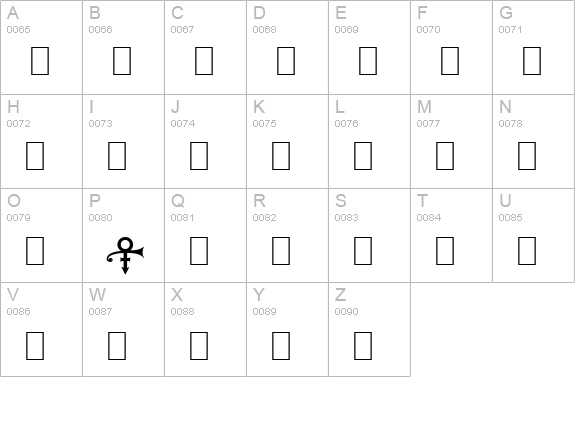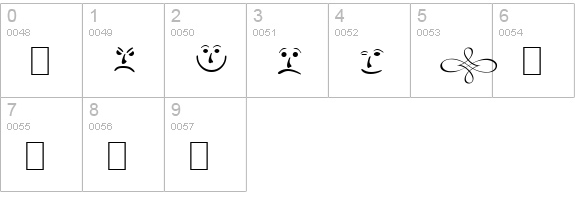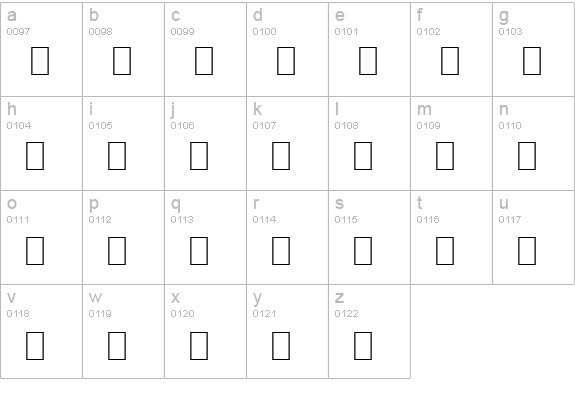
PrinceNormal Font Details
Introducing PrinceNormal font, a modern and versatile typeface designed to elevate your creative projects to the next level. With its sleek lines and elegant curves, PrinceNormal exudes a sense of sophistication and style. Perfect for branding, logos, headlines, and more, this font is sure to make a lasting impression. What's even better is that PrinceNormal is available for free download at FontsMarket.com. Yes, you read that right - you can add this premium font to your collection without spending a dime. Don't miss out on the opportunity to enhance your designs with PrinceNormal font today!